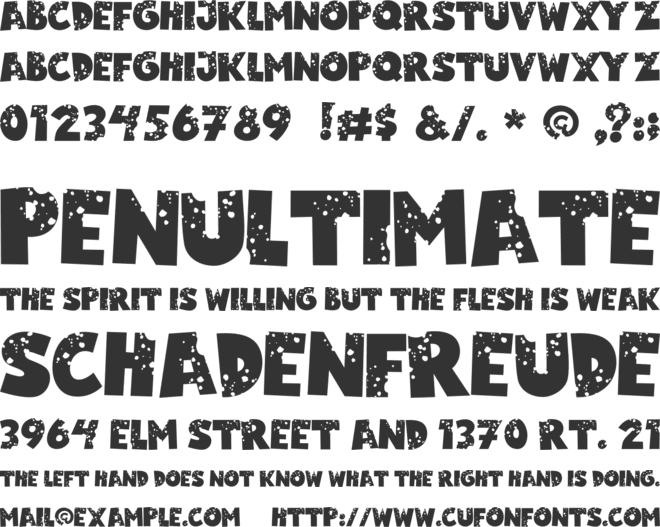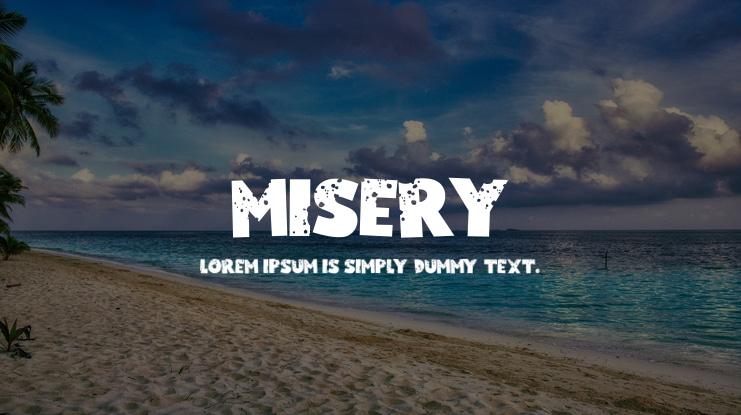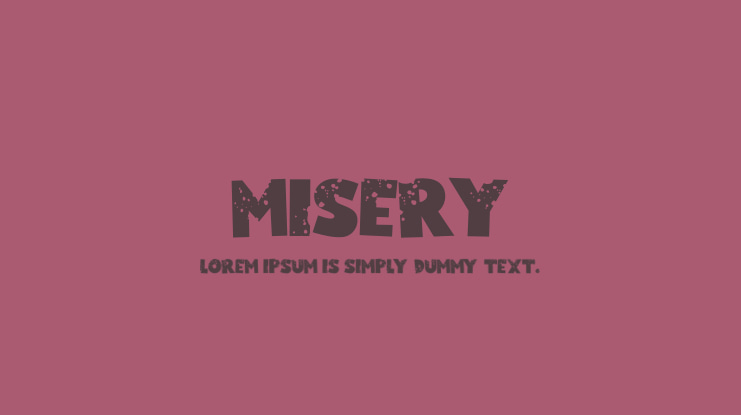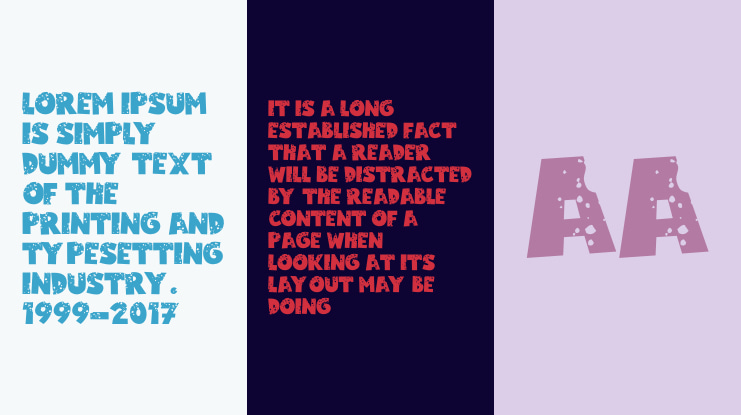
Misery Font
Misery eroded fonts. Unique fonts, a mix of something cute with a mischief, crumbling and disorganized. Bold with an eroded shape, it's still quite easy to read, even from a distance. To welcome Halloween 2021, these fonts are suitable for funny horror-themed displays, t-shirts and merchandising